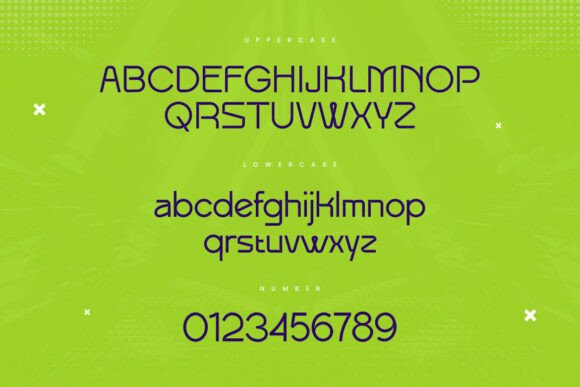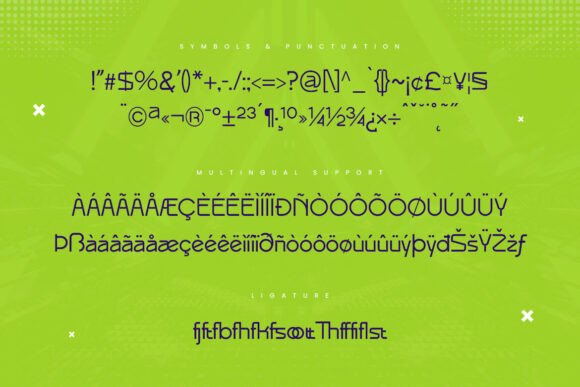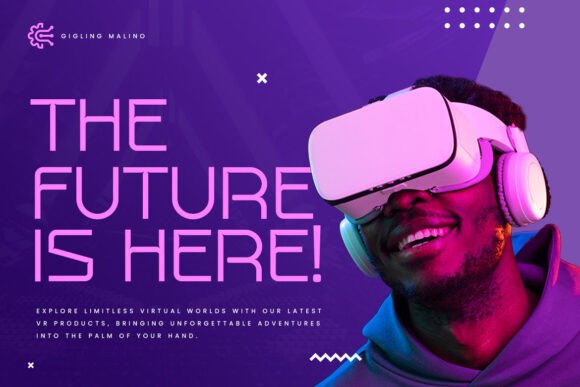
Unveiling the Magic of Pixiom Font
Have you ever found yourself stuck in a creative rut, staring blankly at a blank canvas, desperate for that one design element that brings your project to life? We’ve all been there. But what if you could infuse your work with a dash of sophistication, a pinch of elegance, and a whole lot of style? Enter Pixiom Font, the game-changing sans serif typeface that’s about to revolutionize the way you approach your creative projects.
As a designer, you know that the right font can make all the difference between a mediocre design and a masterpiece. And that’s exactly what Pixiom Font offers – a seamless blend of style and readability that’s perfect for digital elements, magazine layouts, and minimalist schemes alike. With its crisp, geometric persona, Pixiom Font is the ultimate design resource for anyone looking to elevate their creative project to the next level.
Key Features of Pixiom Font
- High-quality, professional font perfect for creative projects, including graphic design, digital art, and publishing.
- Available in 1 font style and 1 font weight, providing a clean and modern aesthetic for creative projects.
- Perfect for designers and artists working on a variety of creative projects, from logos and branding to digital art and publishing.
Honest Review: Pixiom Font
As a designer, I’m always on the lookout for high-quality design resources that can help elevate my creative projects. The Pixiom Font is a recent discovery that has caught my attention. Here’s my honest review.
- ✨ Unique and modern design style that’s perfect for creating a professional look.
- ✨ Excellent legibility, making it easy to read even in smaller font sizes.
- ✨ Suitable for a variety of design projects, including logos, brochures, and website design.
- ⚠️ The font does not support transparent backgrounds, which can limit its use in certain design applications.
- ⚠️ Some users may find the font too modern or bold, making it less suitable for more traditional or conservative design projects.
Overall, I’m impressed with the Pixiom Font’s high quality and versatility. While it may not be perfect for every design project, it’s an excellent addition to any designer’s toolkit. If you’re looking for a modern and professional font, the Pixiom Font is definitely worth checking out.
Pixiom Font
Tips for Getting the Most Out of Pixiom Font
To get the most out of the Pixiom Font, use it in combination with other high-quality design resources. Experiment with different font sizes, colors, and styles to create visually appealing designs.
The Pixiom Font is suitable for a variety of design projects, including:
- Brochures and flyers
- Web design and landing pages
- Infographics and presentations
Alternatives to Pixiom Font
Monserrat Font is a popular sans-serif font known for its high quality and versatility. It is ideal for creative projects that require a clean and modern look, such as logos, brochures, and websites. Montserrat Font is available for free download and offers a transparent background, making it suitable for projects that require a lot of text.
Compared to Pixiom Font, Montserrat Font is more geometric and has a wider range of weights and styles, making it a better choice for projects that require a lot of text formatting.
Open Sans Font is a modern sans-serif font that is highly legible and easy to read. It is a great choice for creative projects that require a clean and minimalistic look, such as websites, blogs, and mobile apps. Open Sans Font is available for free download and offers a transparent background, making it suitable for projects that require a lot of text.